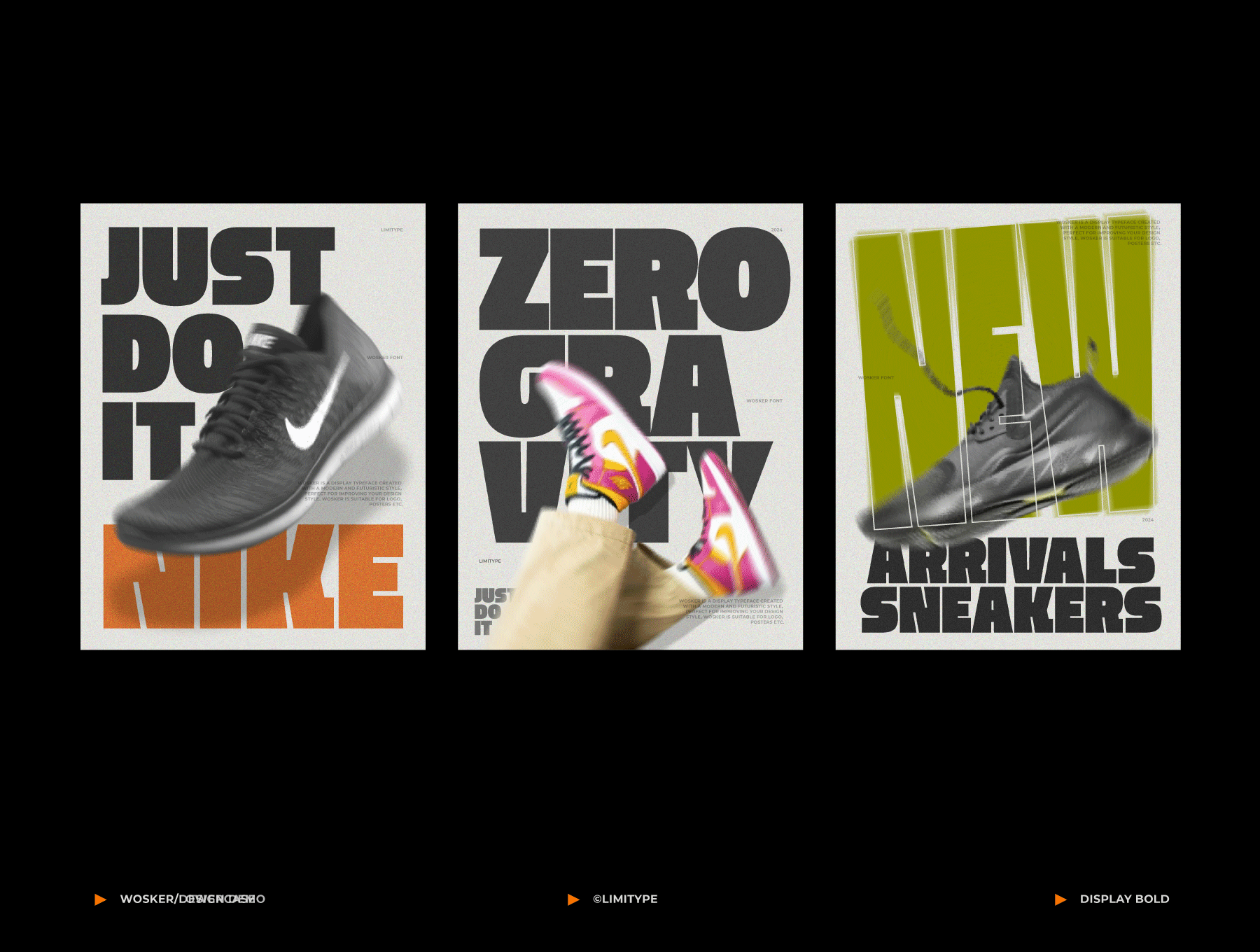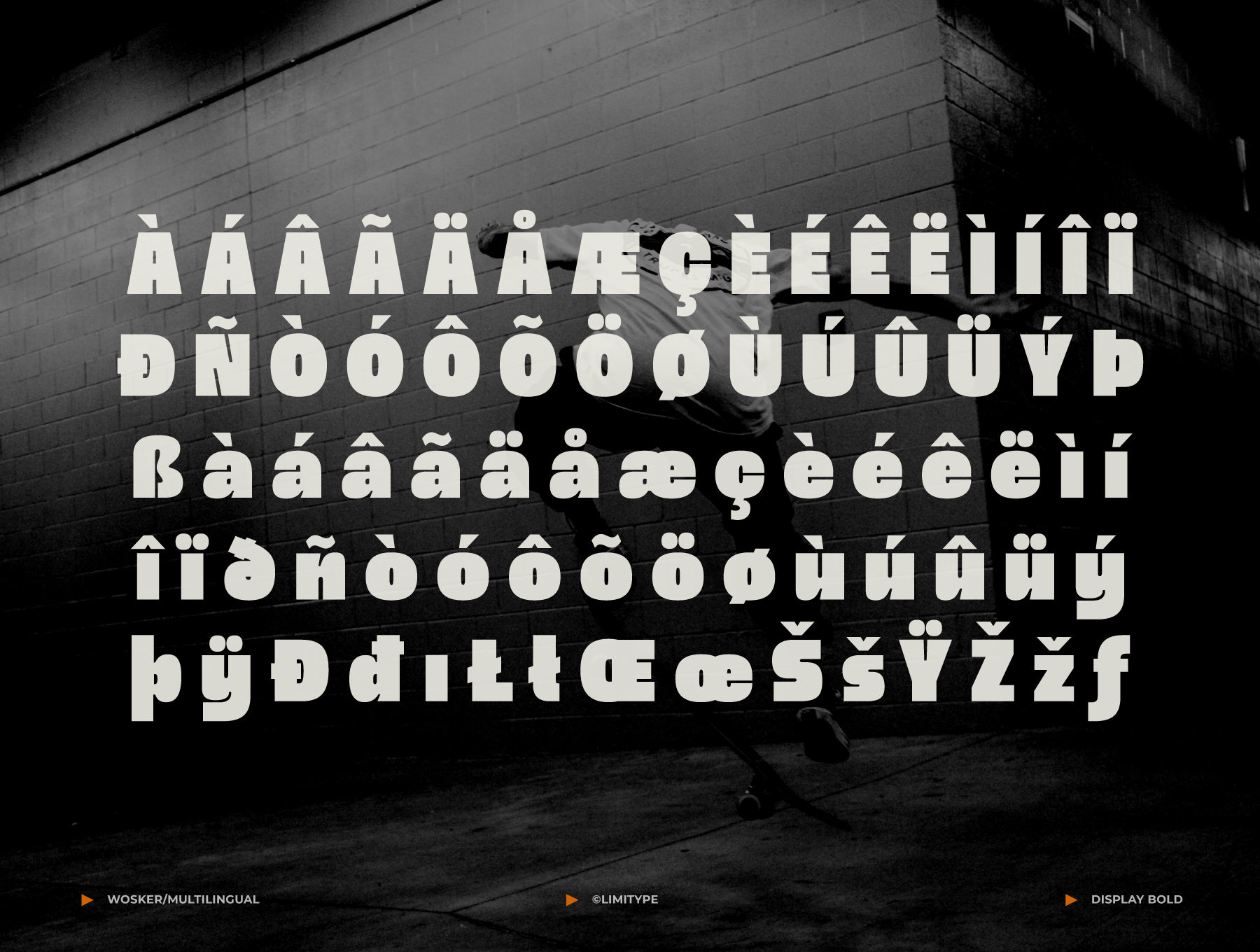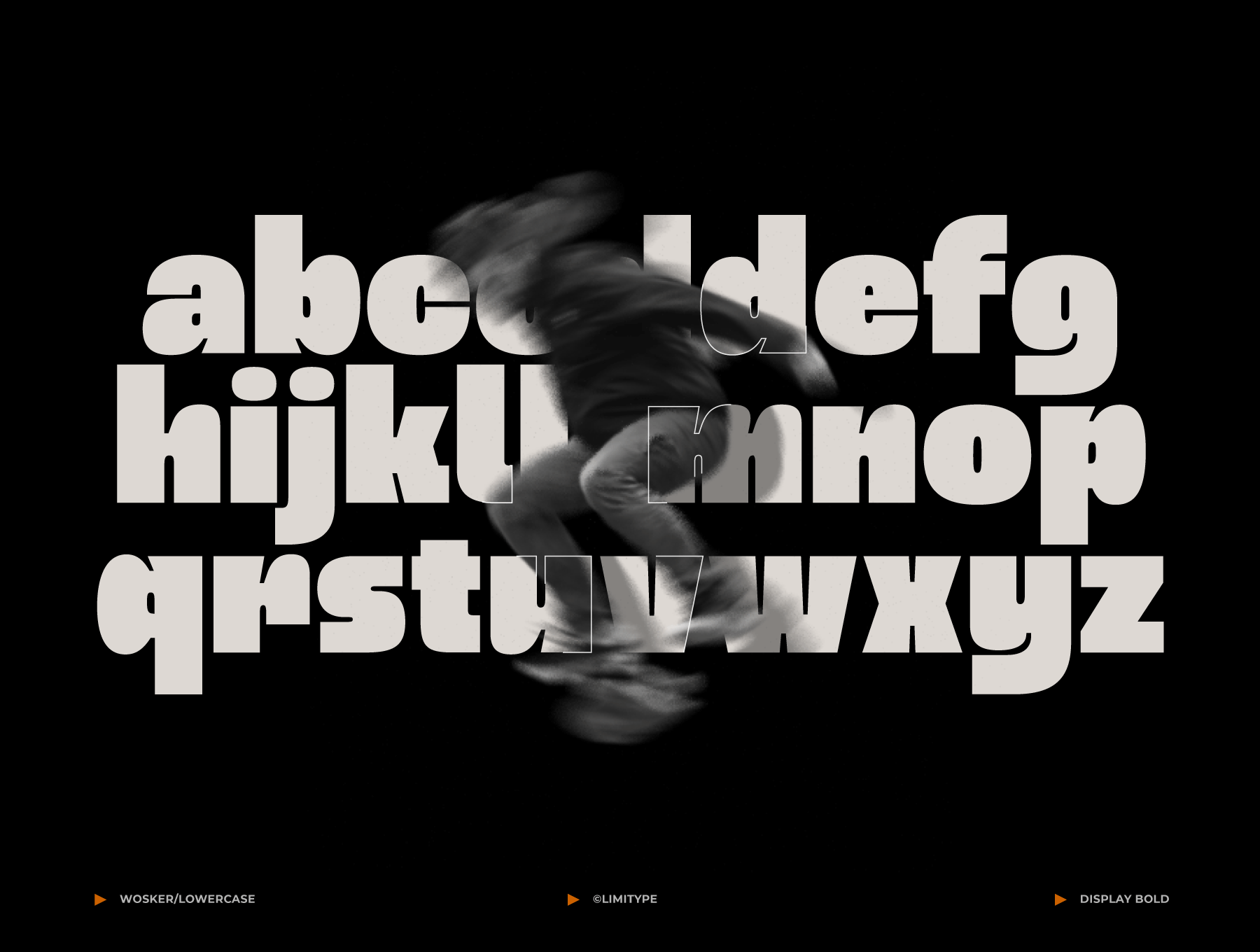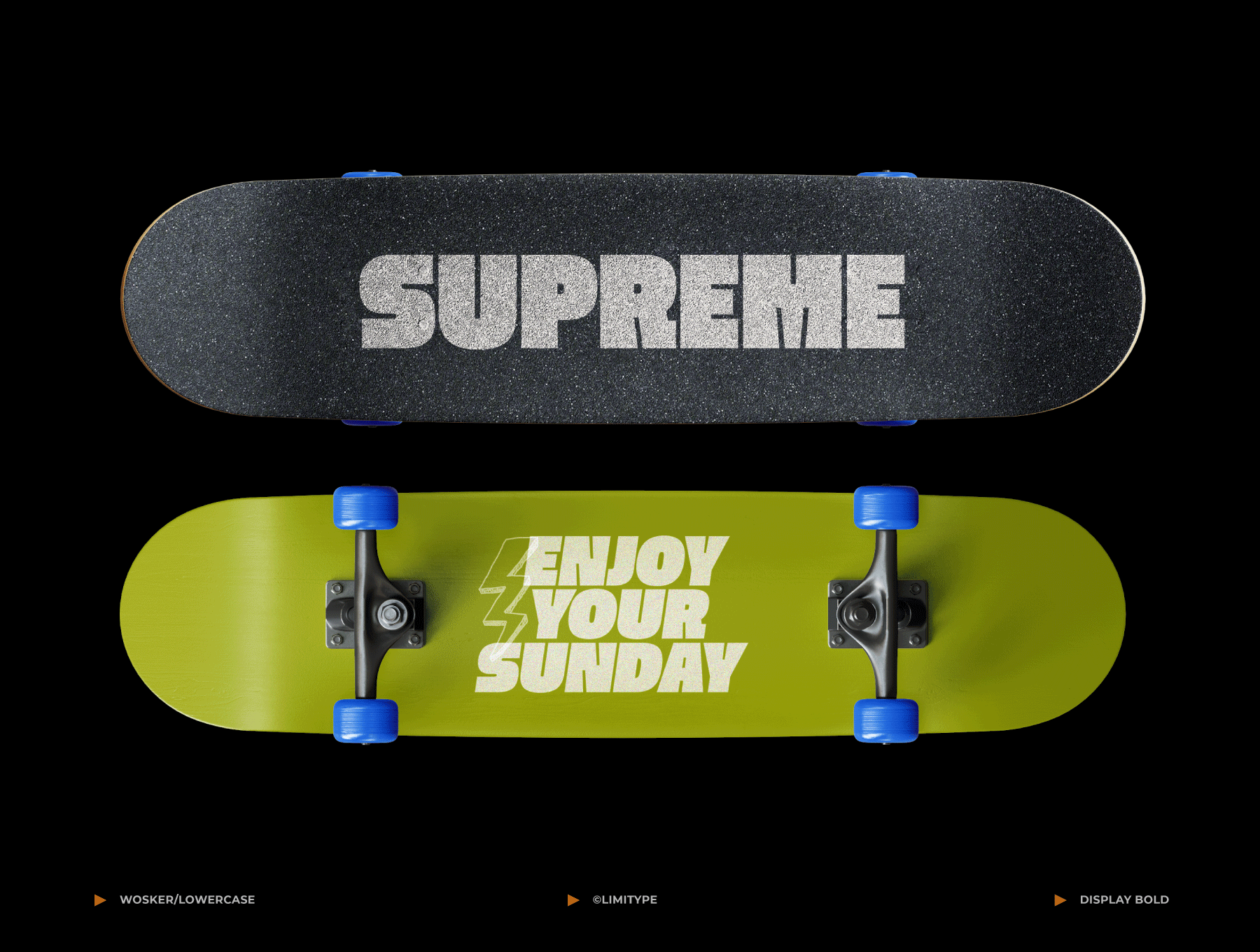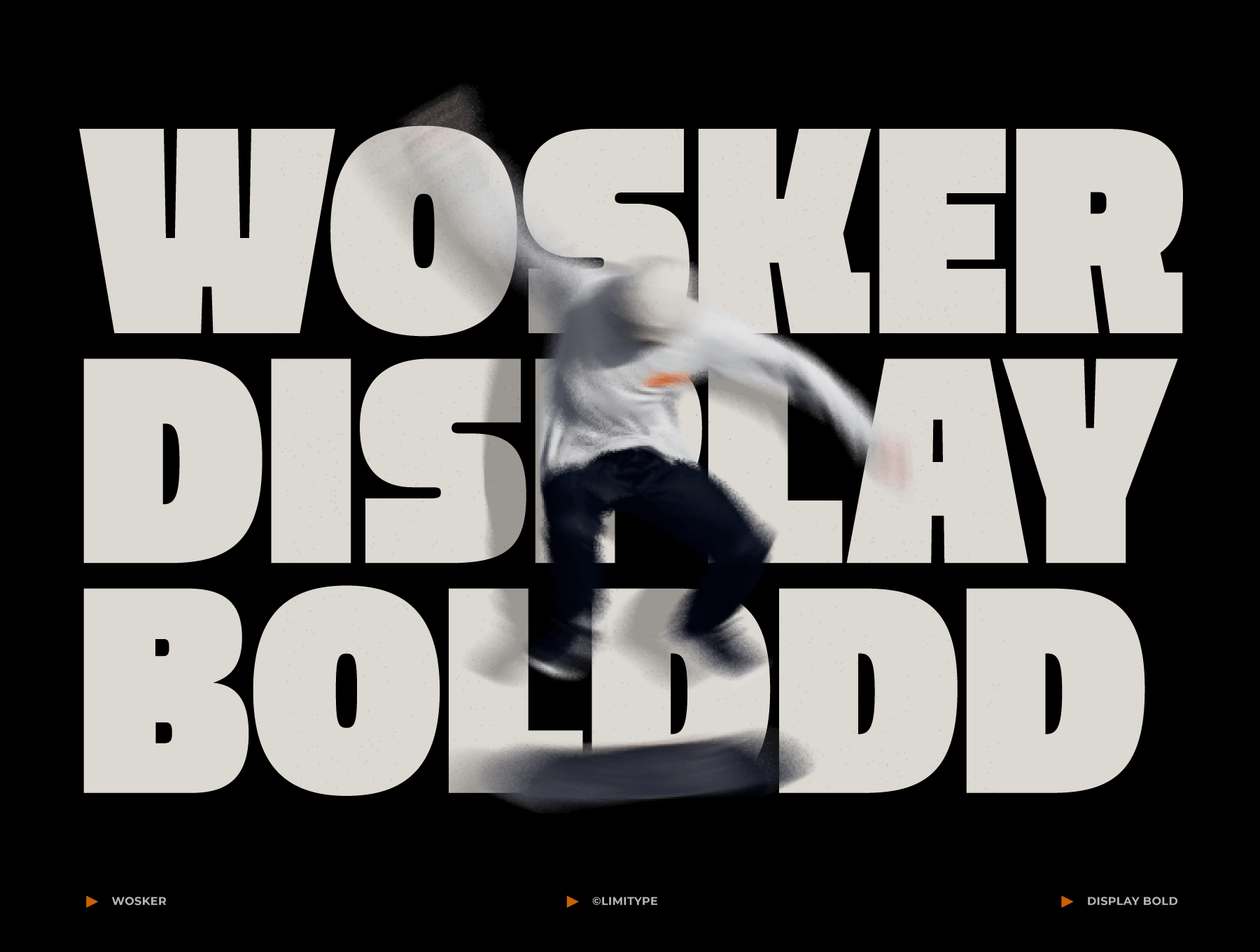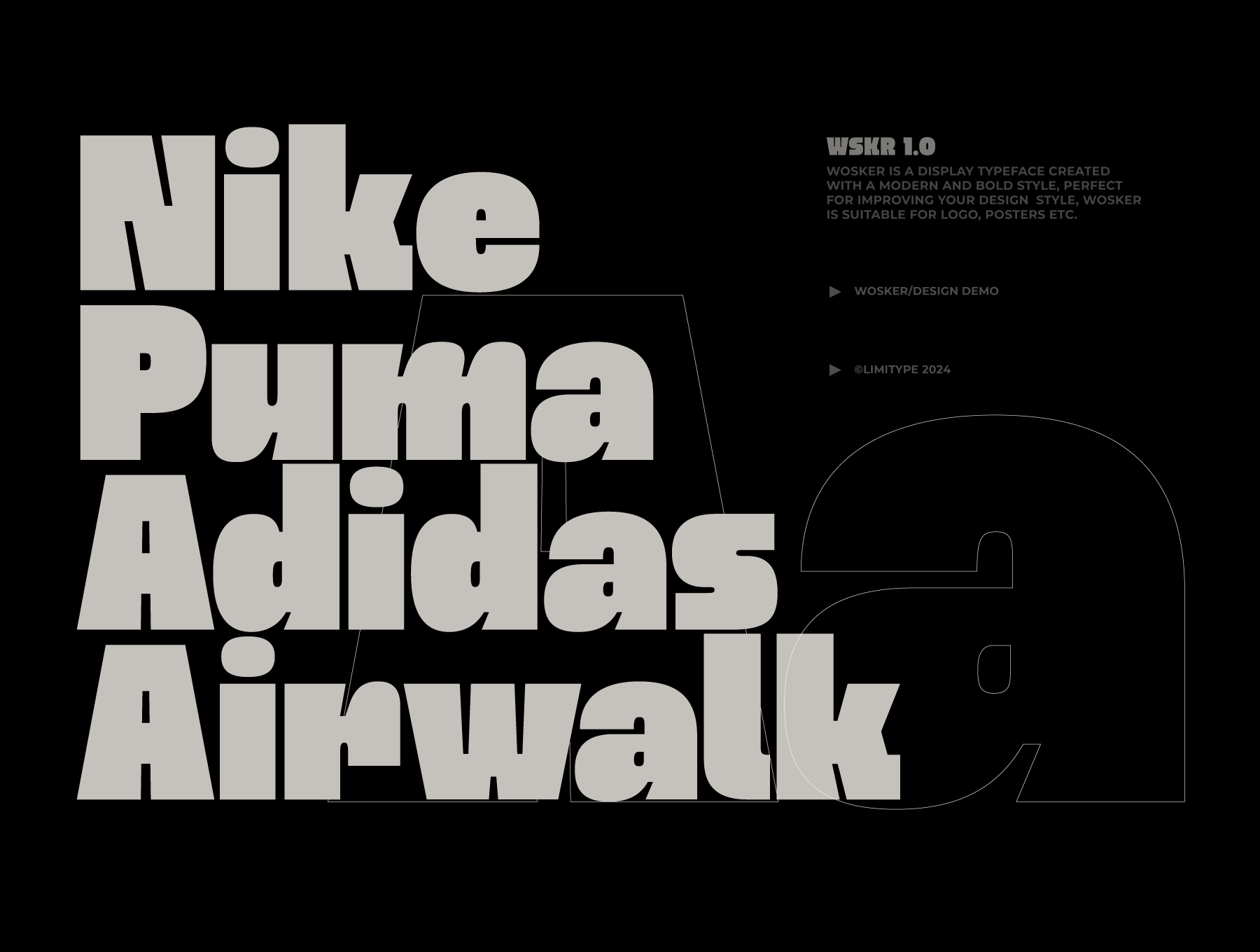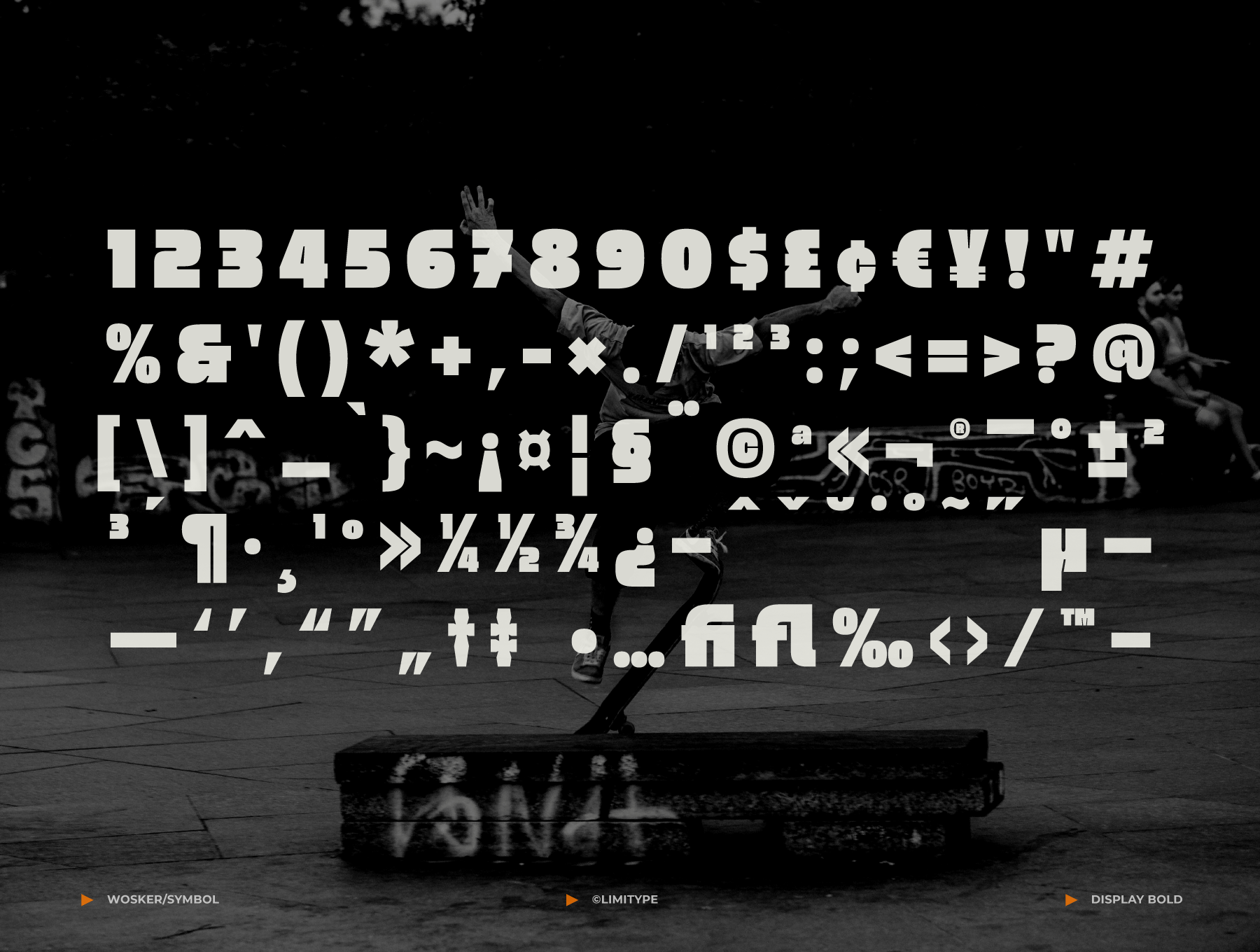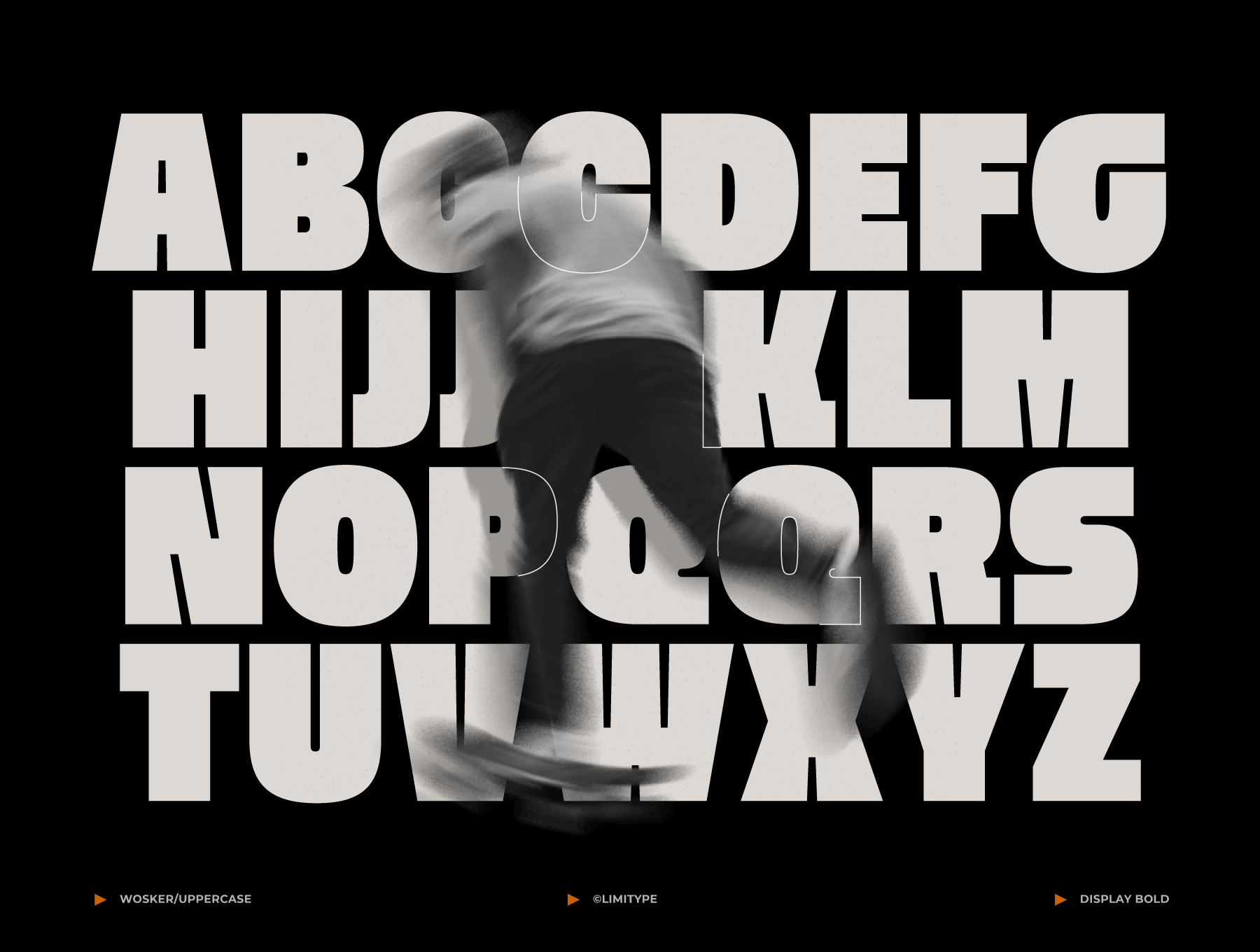
Wosker - Bold Font
Wosker is a display font with bold and modern characteristics, suitable for your designs that require a strong, firm, clear design but still look modern, friendly and not stiff. Wosker font is ready to support your amazing designs.
Wosker is equipped with:
• Upper case
• Lower case
• Symbols
• Number
• Multilingual